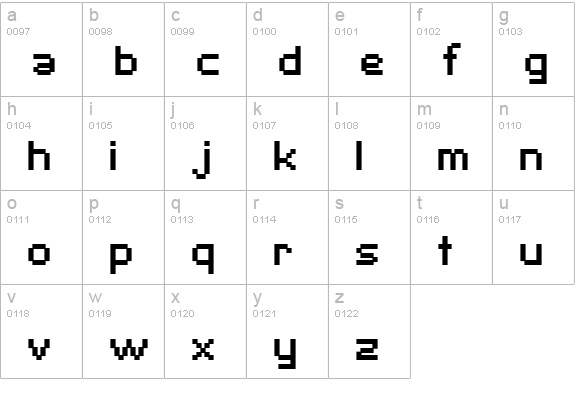
SF Pixelate Bold Font Details
SF Pixelate Bold is a strong, high-contrast variant in the SF typeface family \xE2\x80\x94 well suited to headlines, attention-grabbing titles, and strong calls-to-action.
SF Pixelate Bold is a striking and modern font that is perfect for adding a touch of boldness and uniqueness to your designs. With its pixelated and geometric style, this font is sure to make a statement and grab attention. Whether you're designing a logo, poster, or website, SF Pixelate Bold will give your project a fresh and contemporary look. What's even better is that SF Pixelate Bold is available for free! That's right, you can download this incredible font without spending a dime. The versatility and eye-catching nature of SF Pixelate Bold make it a must-have for any designer or creative professional. To get your hands on this amazing font, simply head over to FontsMarket.com. There, you can easily and freely download SF Pixelate Bold and start using it in your projects right away. Don't miss out on this fantastic opportunity to enhance your designs with a font that is both bold and free. Download SF Pixelate Bold today and take your creations to the next level!